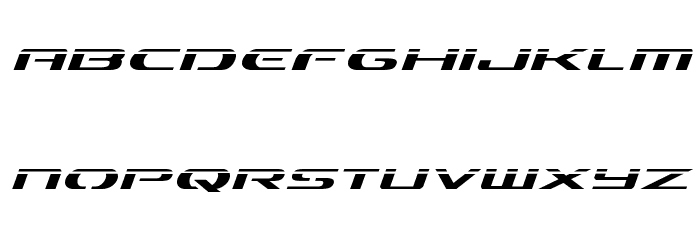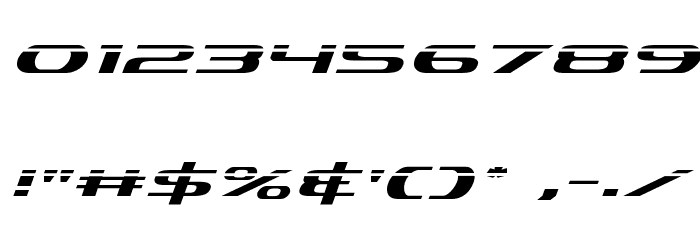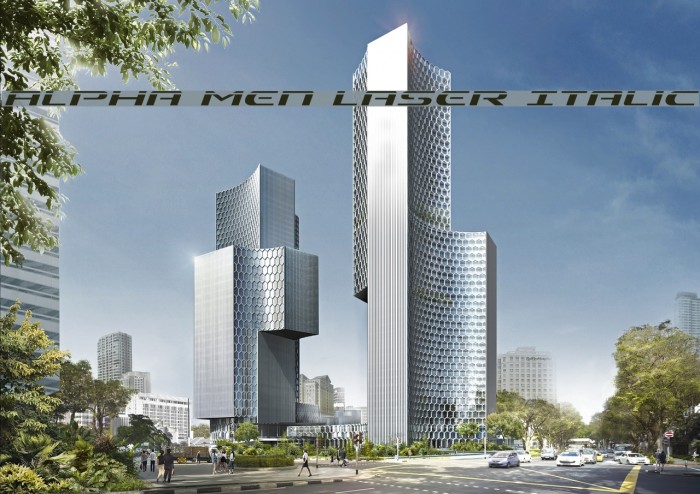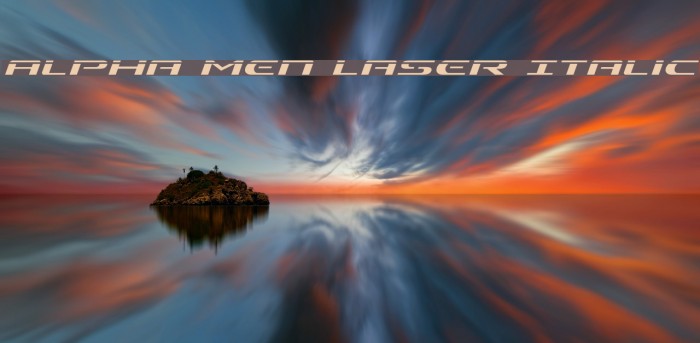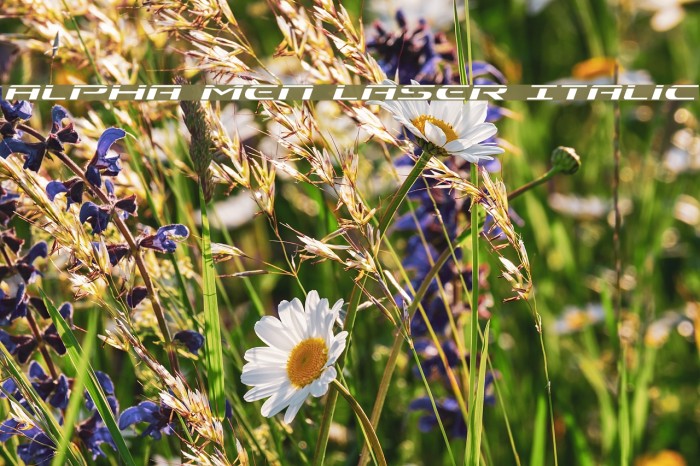
Alpha Men Laser Italic Font
This font features a futuristic and dynamic design, characterized by sharp angles and a sleek, italicized form. The letters are slightly slanted, giving a sense of motion and speed. The strokes are consistent in thickness, providing a uniform appearance across all characters. The design incorporates a modern aesthetic with a hint of technological influence, making it suitable for projects that require a cutting-edge look. The numbers and special characters maintain the same stylistic approach, ensuring cohesion throughout the font set.
A futuristic, italicized font with sharp angles and a sleek design.
- Proposed Projects: Ideal for sci-fi themed projects, technology branding, video game titles, and modern advertising campaigns.